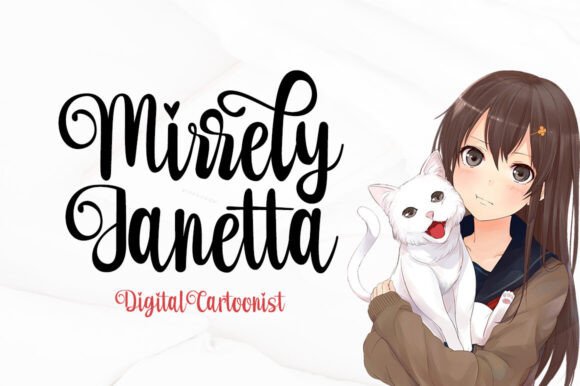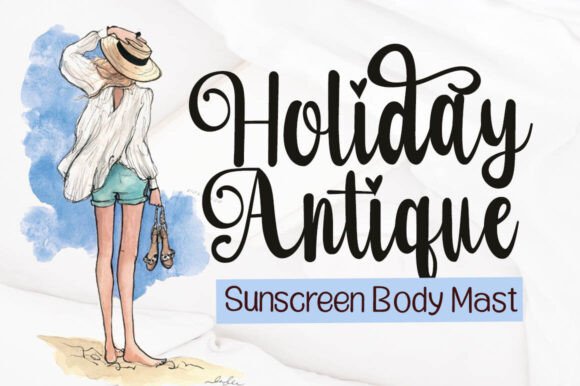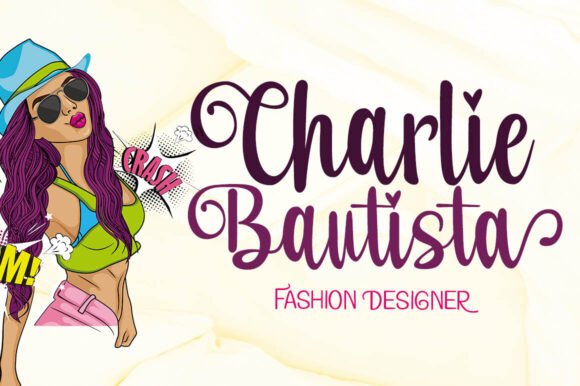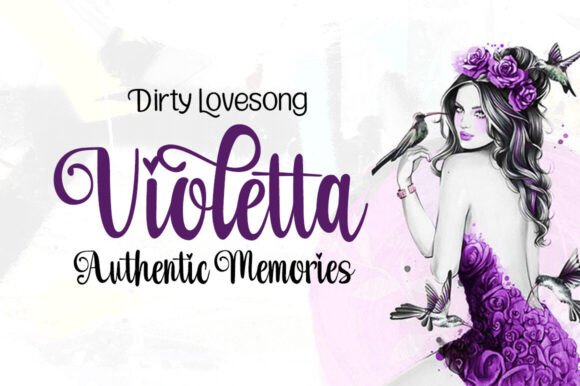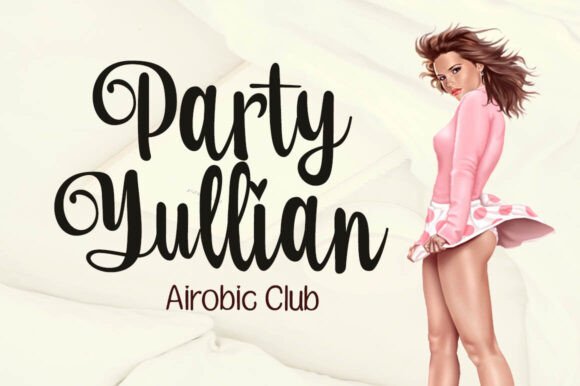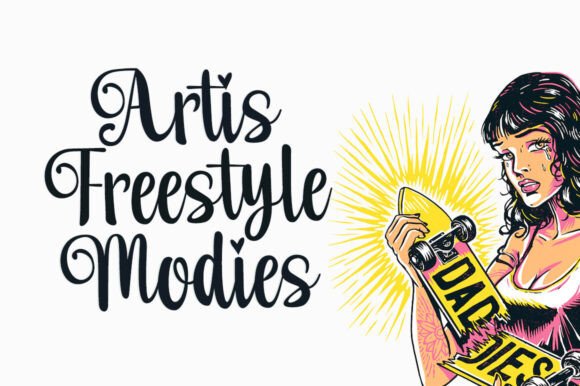
Introduction to Hey Natalia Font
Hey Natalia is a stylish and incredibly elegant script font.
Key Features of Hey Natalia Font
Why Choose Hey Natalia Font?